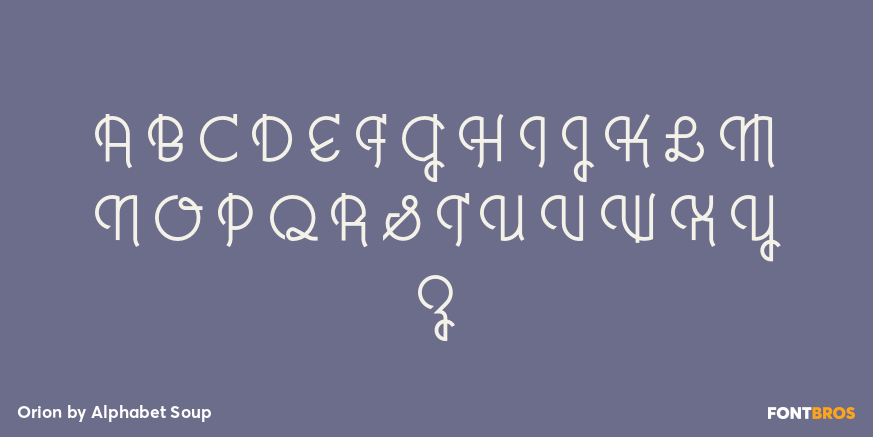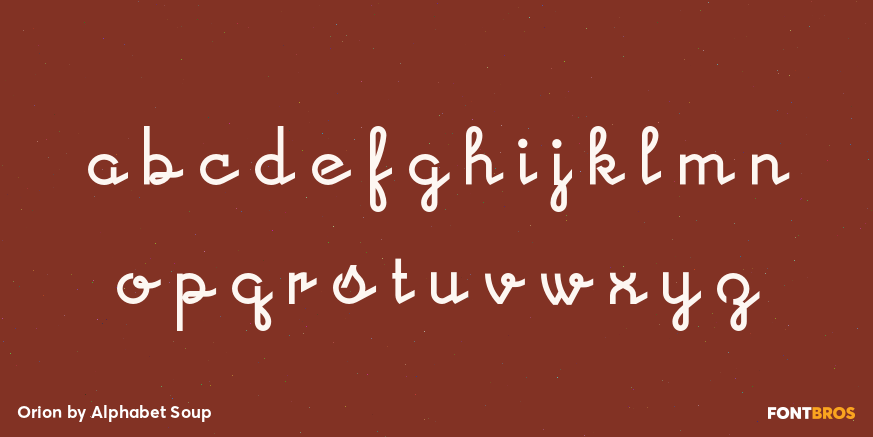
Orion
Font Family by Alphabet Soup
Buy NowOrion was initially inspired by an enameled sign I picked up at a Paris flea market. Always looking to do something a little different, I realized that there was no typeface that used the forms I saw in that sign, and Orion was the result. Orion can be defined as a geometric, connecting script that is at once contemporary, yet classic and timeless.